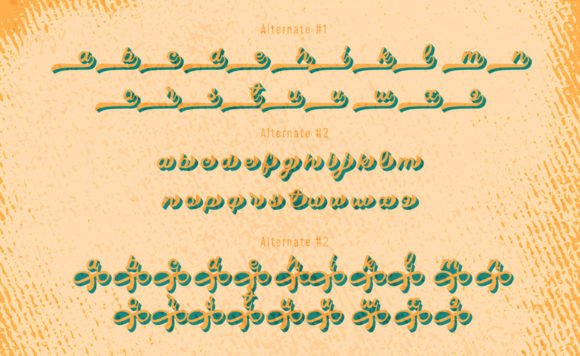
Radial Vintage Font
Radial Vintage is a groovy vintage script typeface that creates a warm and fun atmosphere. No matter the topic, this font will be an incredible asset to your fonts’ library, as it has the potential to elevate any creation.